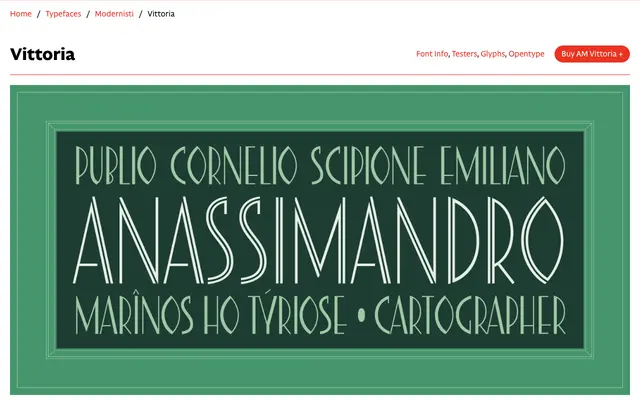
AM Vittoria
CAST · Muk Monsalve · 2025
AM Vittoria specimen from CAST
A digital revival of a 1940 Neapolitan metal typeface, restoring its Art Déco geometry with contemporary refinements for poster and signage use.
Originally cast by Fonderia Tipografica Meridionale Armando de Luca of Naples around 1940, the design carries hallmark Art Déco traits: a detached crossbar on A, inverted bowls on B, an almond-shaped O and wide central bars on E and F. Muk Monsalve redistributed contrast on several letters, redrew numerals and introduced monolinear contextual alternates for C, G and S to resolve inconsistencies inherent in the original. An inline version of the full character set is included as a stylistic set via OpenType.
An all-caps condensed geometric sans with pronounced thick/thin contrast and distinctive Art Déco letterforms; the condensed proportions, almond-shaped O and inverted B bowls place it firmly in display territory rather than functional sans-serif.